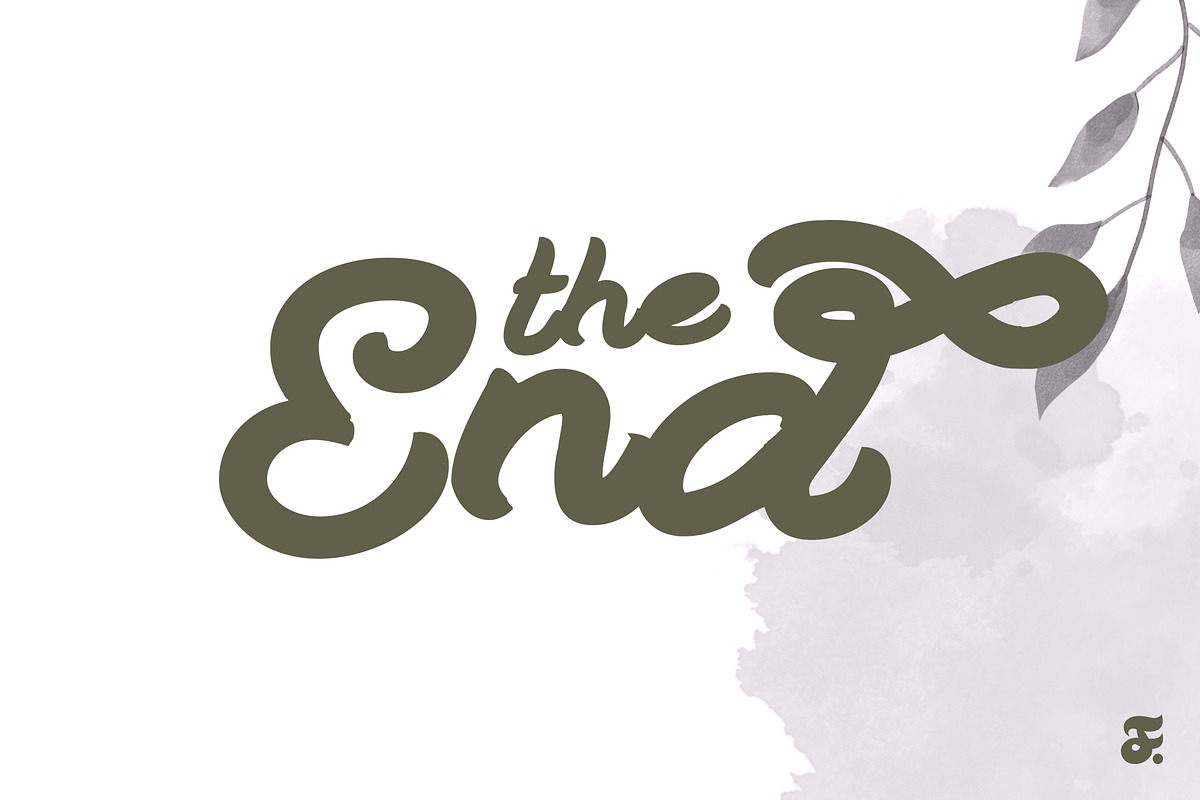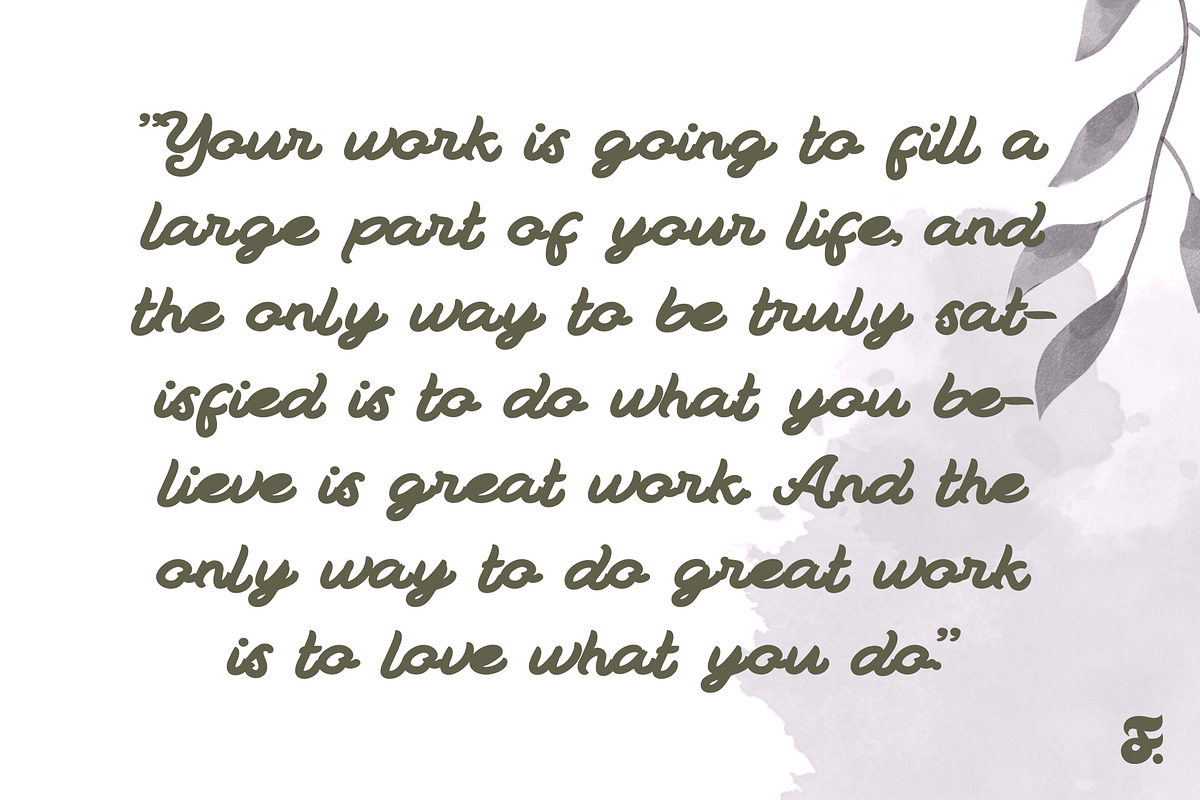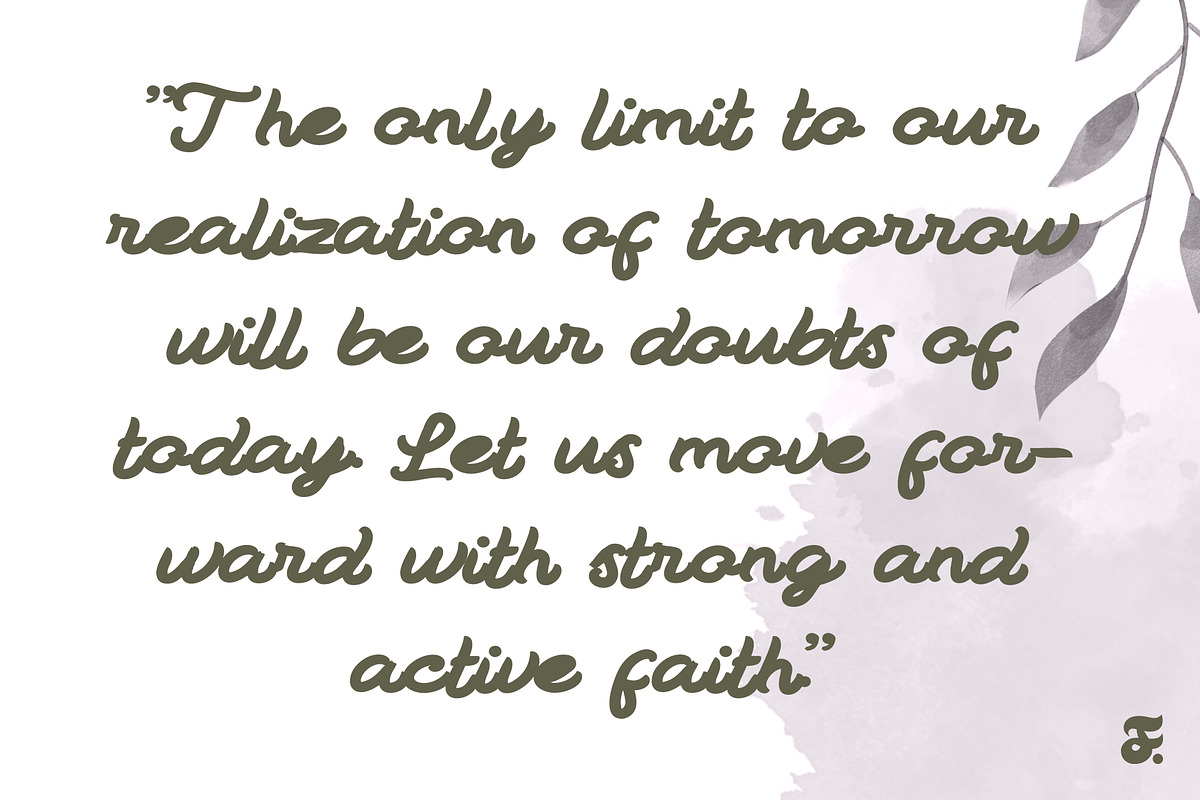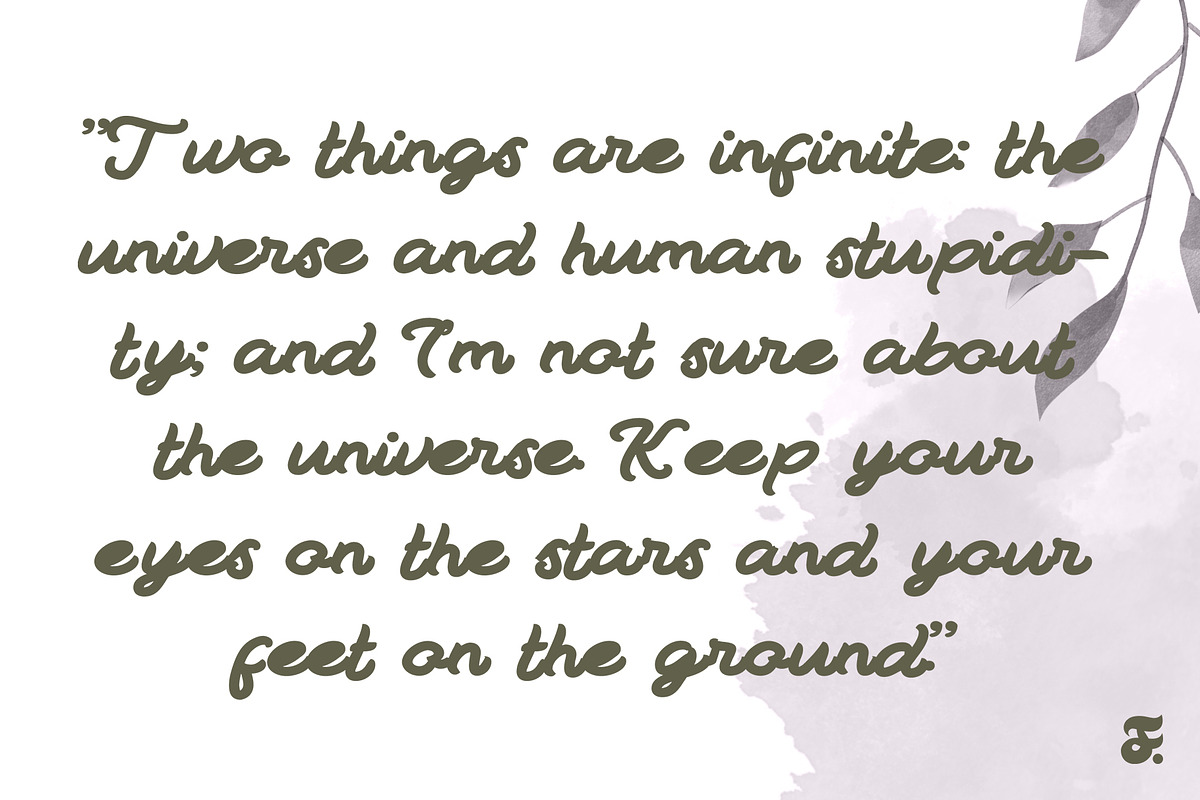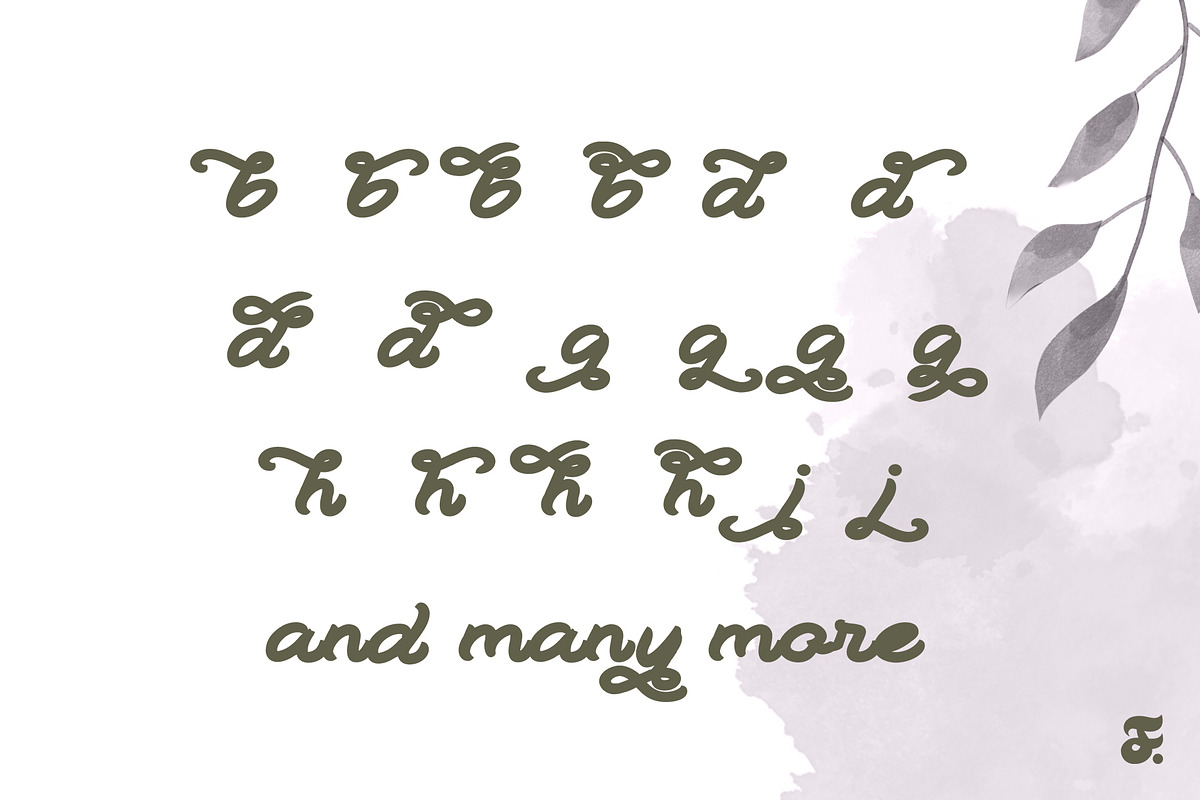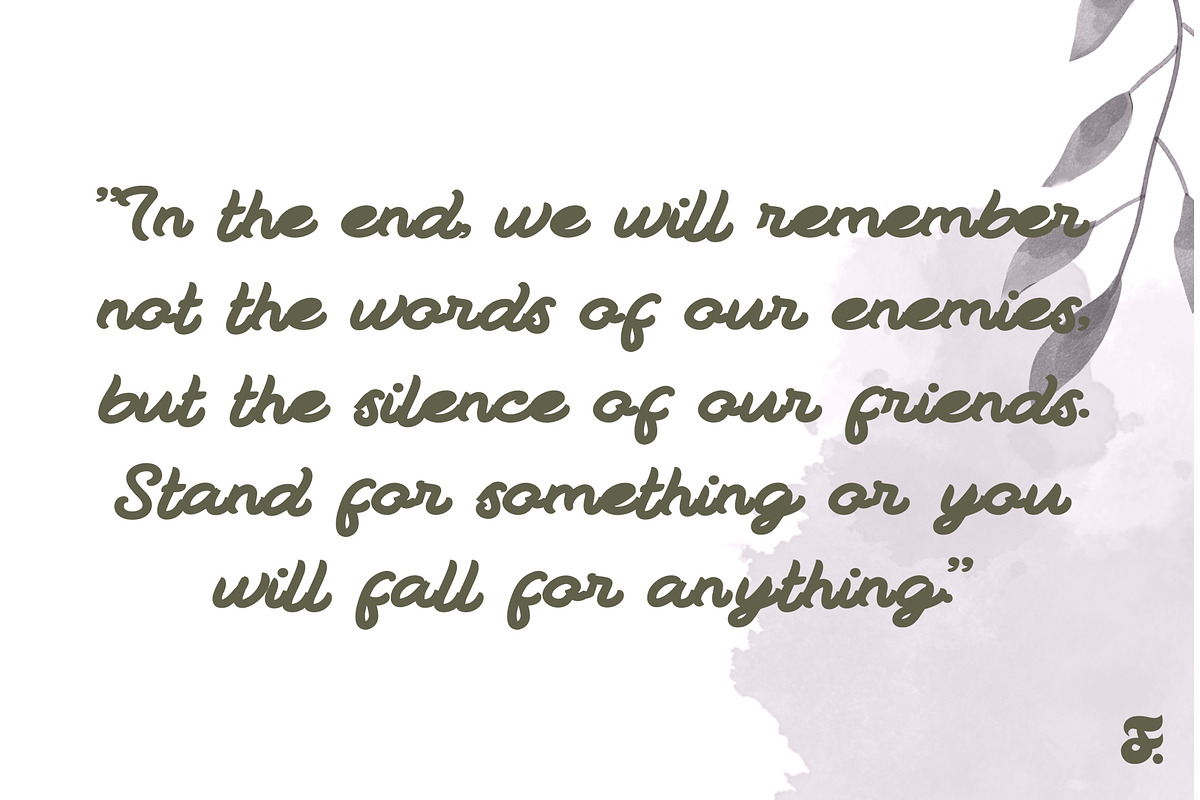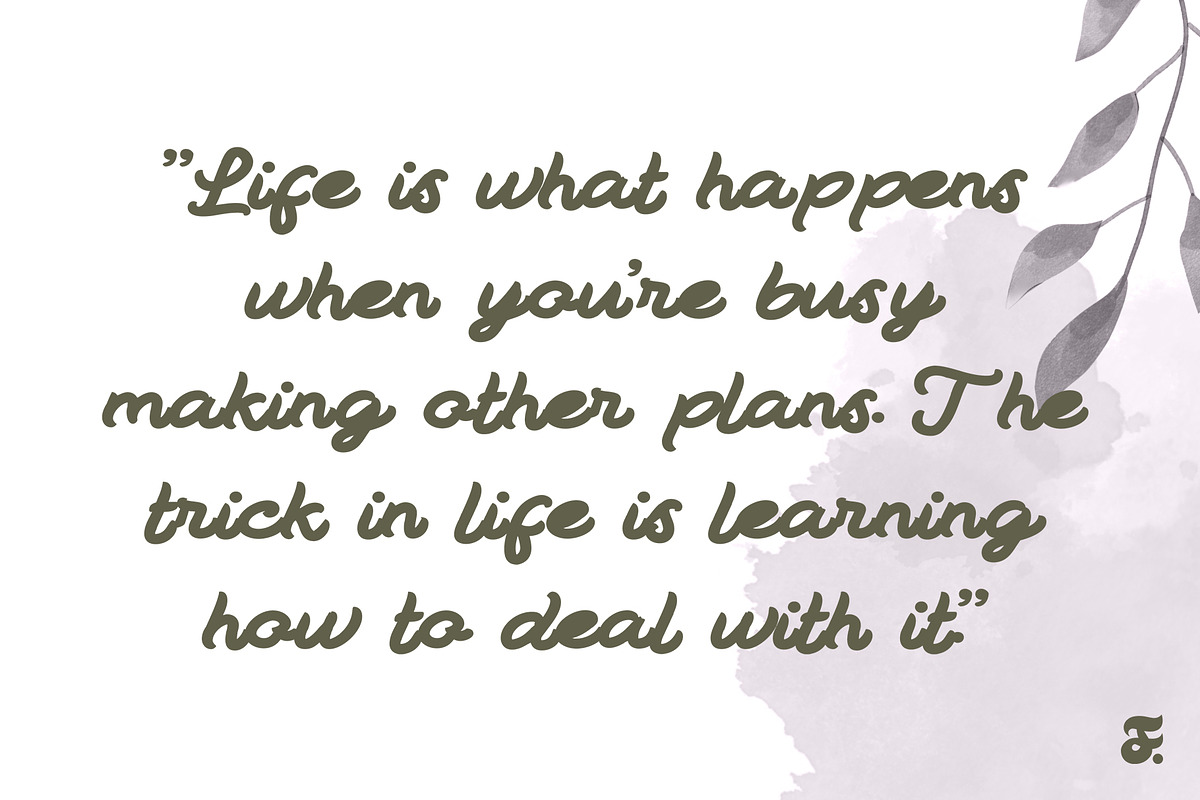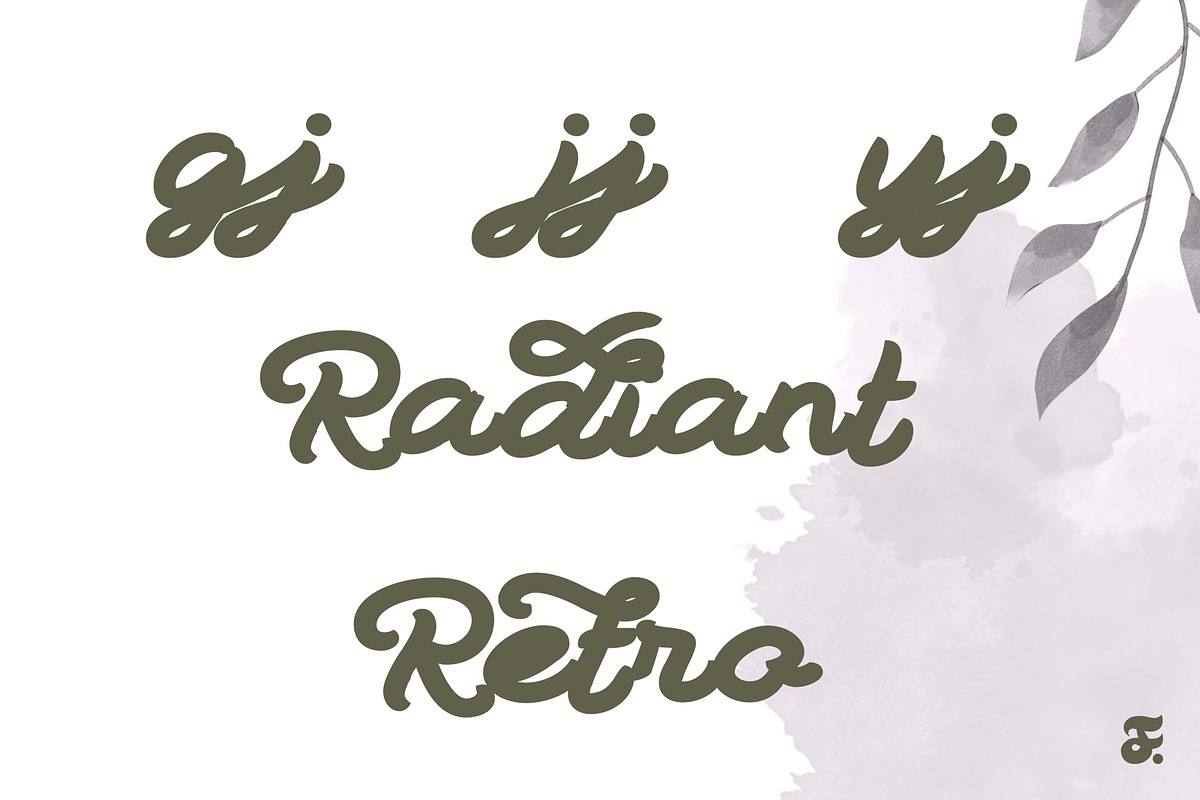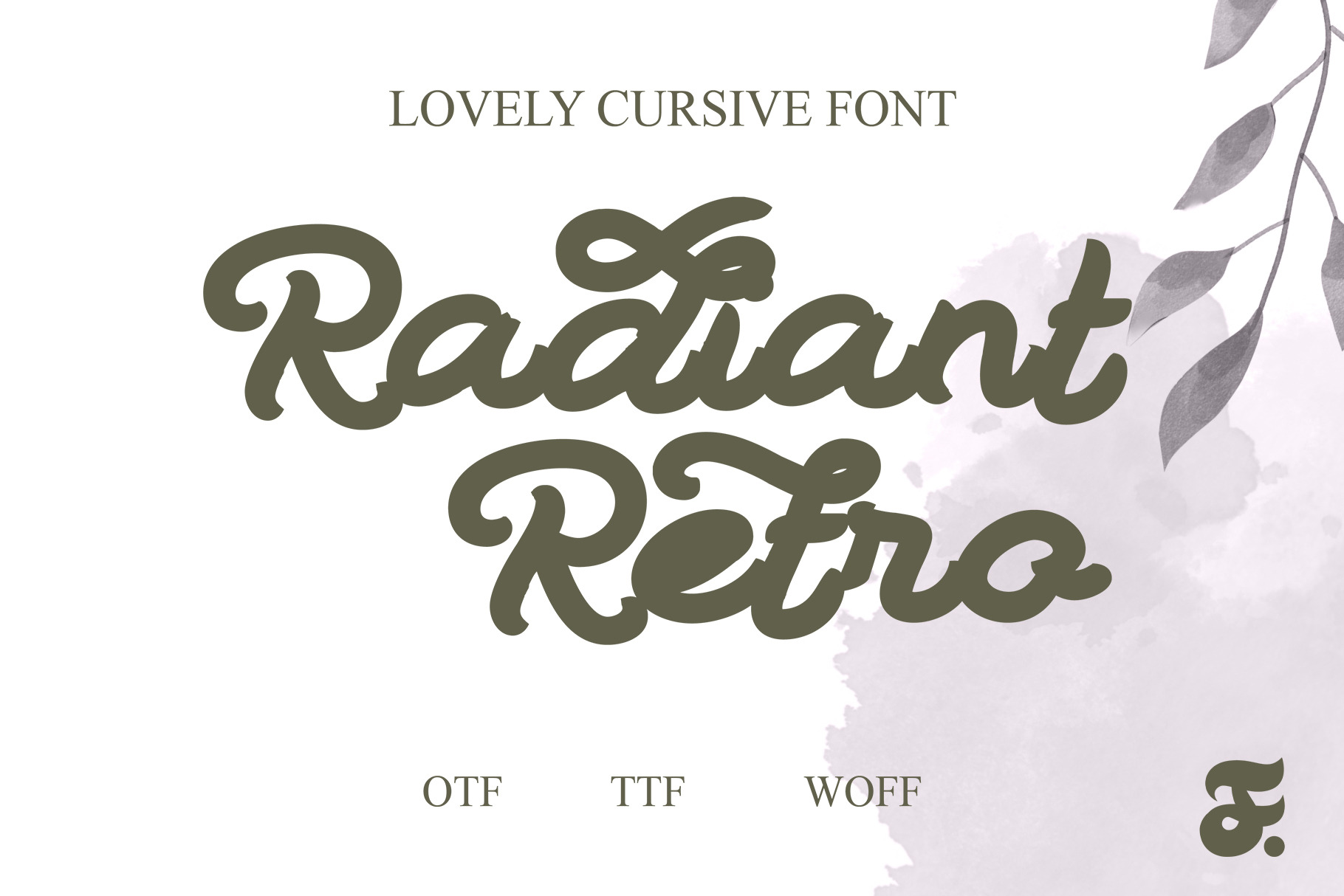
Radiant Retro Brush Font
Radiant Retro Brush Font transports typography enthusiasts to a bygone era, where the allure of vintage design meets the bold, expressive strokes of contemporary brush lettering. This font effortlessly marries nostalgia with modernity, offering a typeface that exudes character and charm. With each letter meticulously crafted, Radiant Retro Brush Font pays homage to the elegance of mid-century design while injecting a fresh vibrancy that resonates with the present. The brush strokes exhibit a sense of fluidity and spontaneity, capturing the essence of hand-painted lettering reminiscent of classic signages and advertisements from the golden age of graphic design.
One of the standout features of Radiant Retro Brush Font lies in its versatility. Whether used for branding, packaging, or display purposes, this font adds a touch of personality to any project. The characters dance across the canvas with a dynamic rhythm, creating a visual impact that is both timeless and contemporary. The textured and slightly imperfect edges of the brush strokes contribute to the font's authenticity, making it an ideal choice for designers seeking to evoke a sense of warmth and authenticity in their creations.
Radiant Retro Brush Font is not just a typeface; it's a journey through the aesthetics of yesteryear revitalized for the modern age. Its carefully curated design allows for seamless integration into a variety of design projects, offering a unique and nostalgic touch that sets it apart. Whether used for headlines, posters, or branding materials, Radiant Retro Brush Font invites designers to embrace the spirit of the past while making a bold statement in the present.